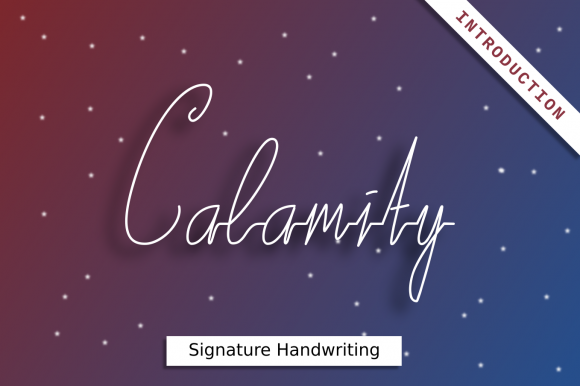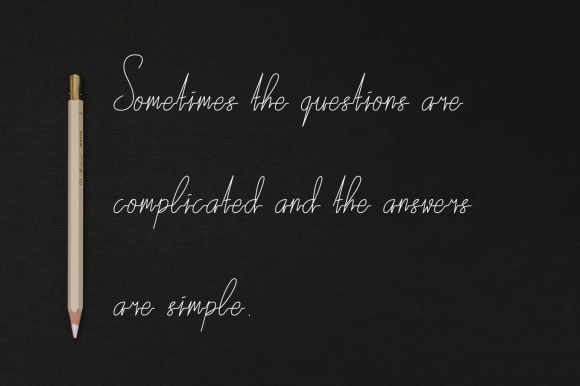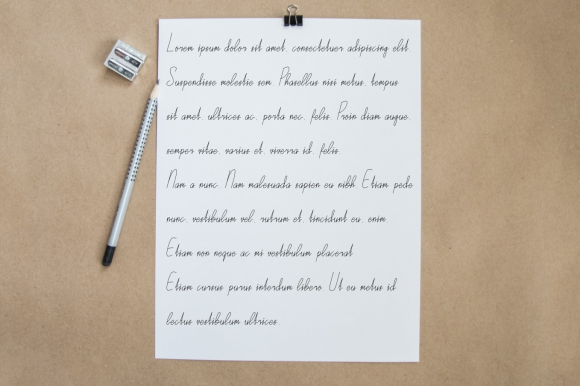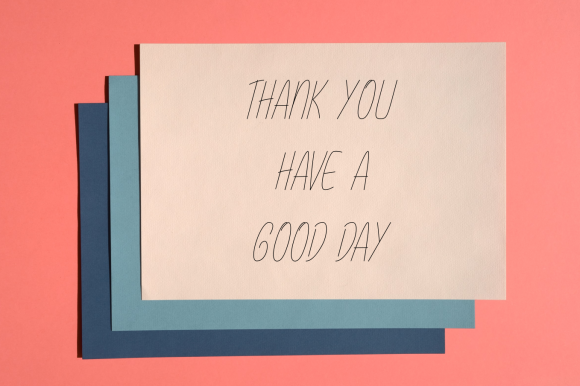
Calamity Font
About Calamity Font
Calamity is a delicate, signature handwritten font. This font has a light, balanced style and features a natural flow. Fall in love with its incredibly versatile style and use it to create gorgeous wedding invitations, beautiful stationary art, eye-catching social media posts, and much more!